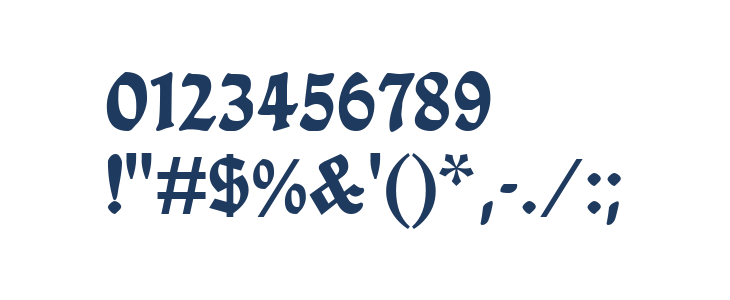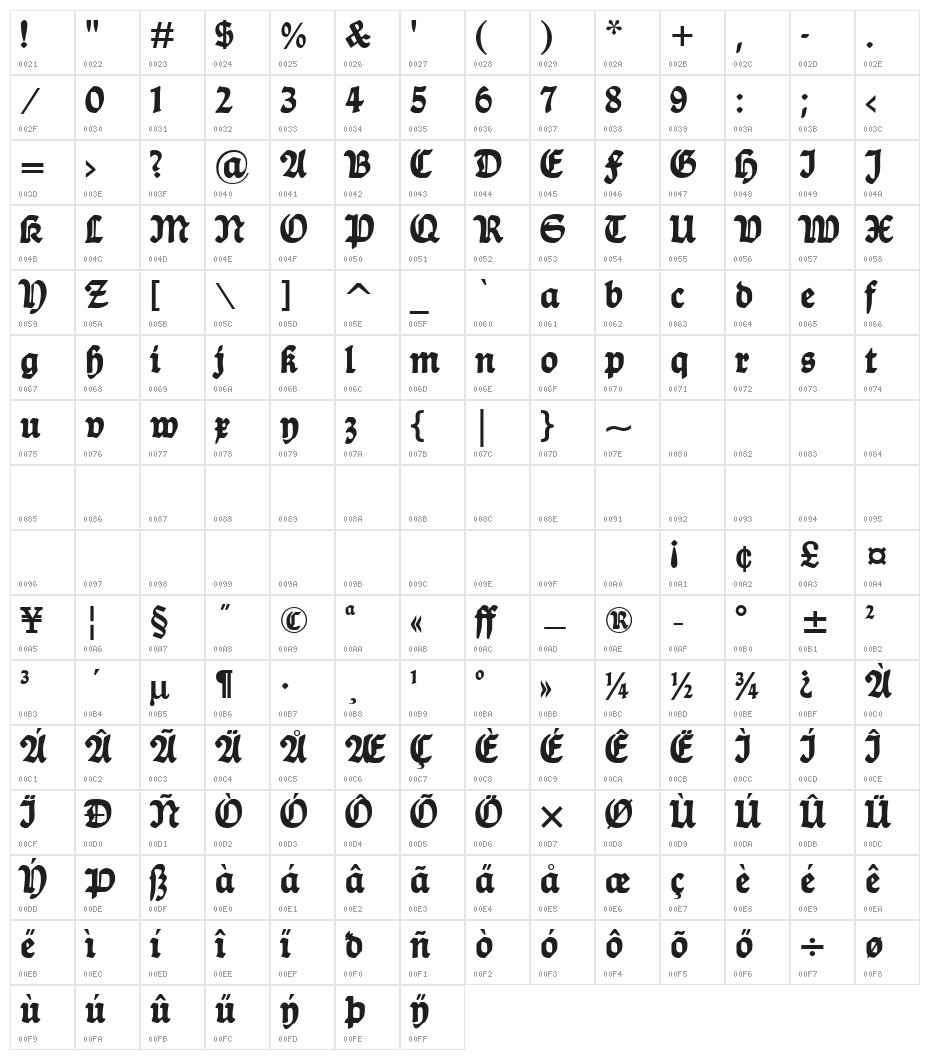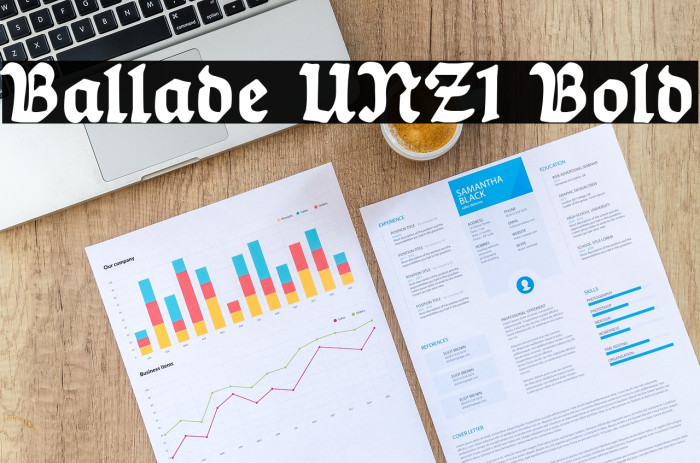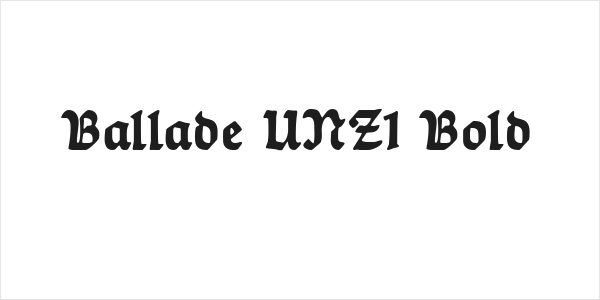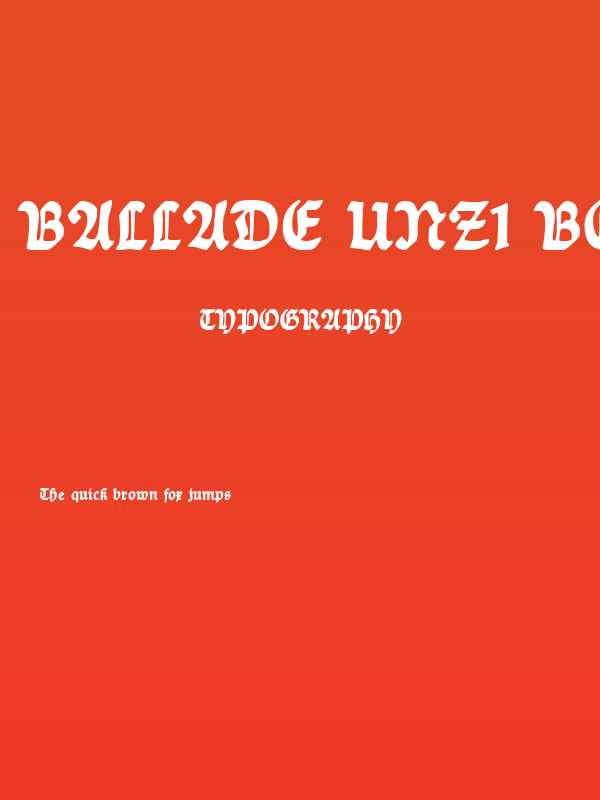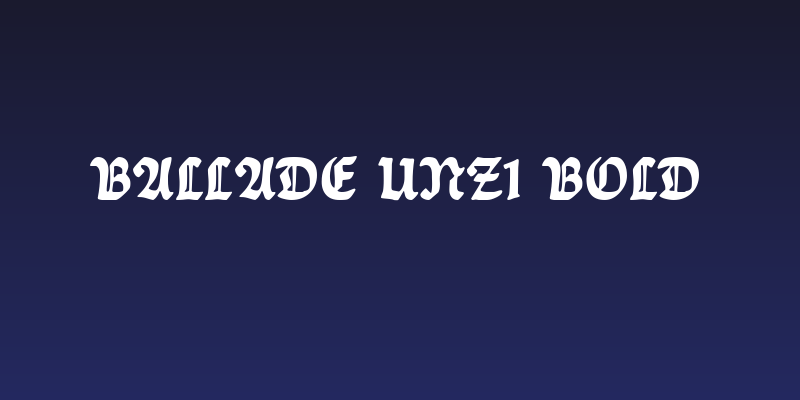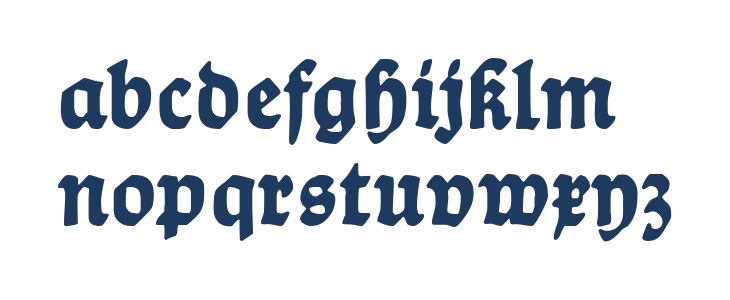
Ballade UNZ1 Bold Font
Ballade UNZ1 Bold Description
This font exhibits a bold and dramatic style, reminiscent of traditional blackletter typefaces. The characters are intricately designed with sharp angles and pronounced curves, giving it a distinct medieval or Gothic appearance. The uppercase letters are particularly ornate, featuring elaborate serifs and unique flourishes that enhance its decorative quality. The lowercase letters maintain a consistent style, with a slightly more subdued design that complements the uppercase set. Numbers and special characters are crafted with the same attention to detail, ensuring a cohesive look across all glyphs. This font's strong visual impact makes it suitable for projects that require a historical or formal aesthetic.
| Use Case | Headlines, Logos, Decorative text |
| Proposed Projects | Ideal for historical documents, event invitations, book covers, or branding that requires a classic or medieval touch. |